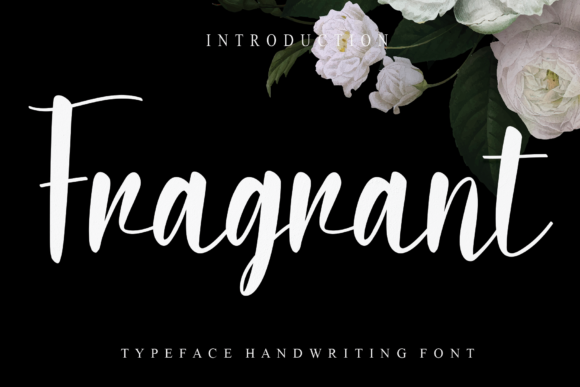
About Fragrant Font
Fragrant is a bold and elegant handwritten font that brings a touch of sophistication and style to your designs. Its simplicity and ease of use make it a versatile choice that can elevate various craft designs with its beauty.
The boldness of Fragrant adds a strong and impactful presence to your typographic compositions. Its well-defined letterforms and confident strokes create a bold and commanding aesthetic. Whether you’re working on labels, packaging, posters, or any other craft design, Fragrant font enhances the overall visual appeal with its bold and elegant demeanor.
The elegance of Fragrant lies in its simplicity. Its clean lines and balanced proportions create a sense of refinement and clarity. This font exudes a timeless beauty that effortlessly complements various design styles, making it a versatile option for your craft projects.
Fragrant’s simplicity and easy-to-use nature make it a reliable choice for designers. Its legible letterforms ensure clear communication of your message, while its elegant style adds a touch of sophistication to your craft designs. This font allows you to create visually striking compositions that captivate and engage your audience.
Incorporating Fragrant into your various craft designs allows you to infuse them with an air of elegance and beauty. Its bold and elegant handwritten style brings a touch of sophistication to your creations, making them visually appealing and memorable.
In summary, Fragrant is a bold and elegant handwritten font that adds sophistication and style to your craft designs. Its simplicity and ease of use make it a versatile choice for various design applications. Embrace the boldness and elegance of Fragrant font and let it enhance your craft designs with its beautiful presence.